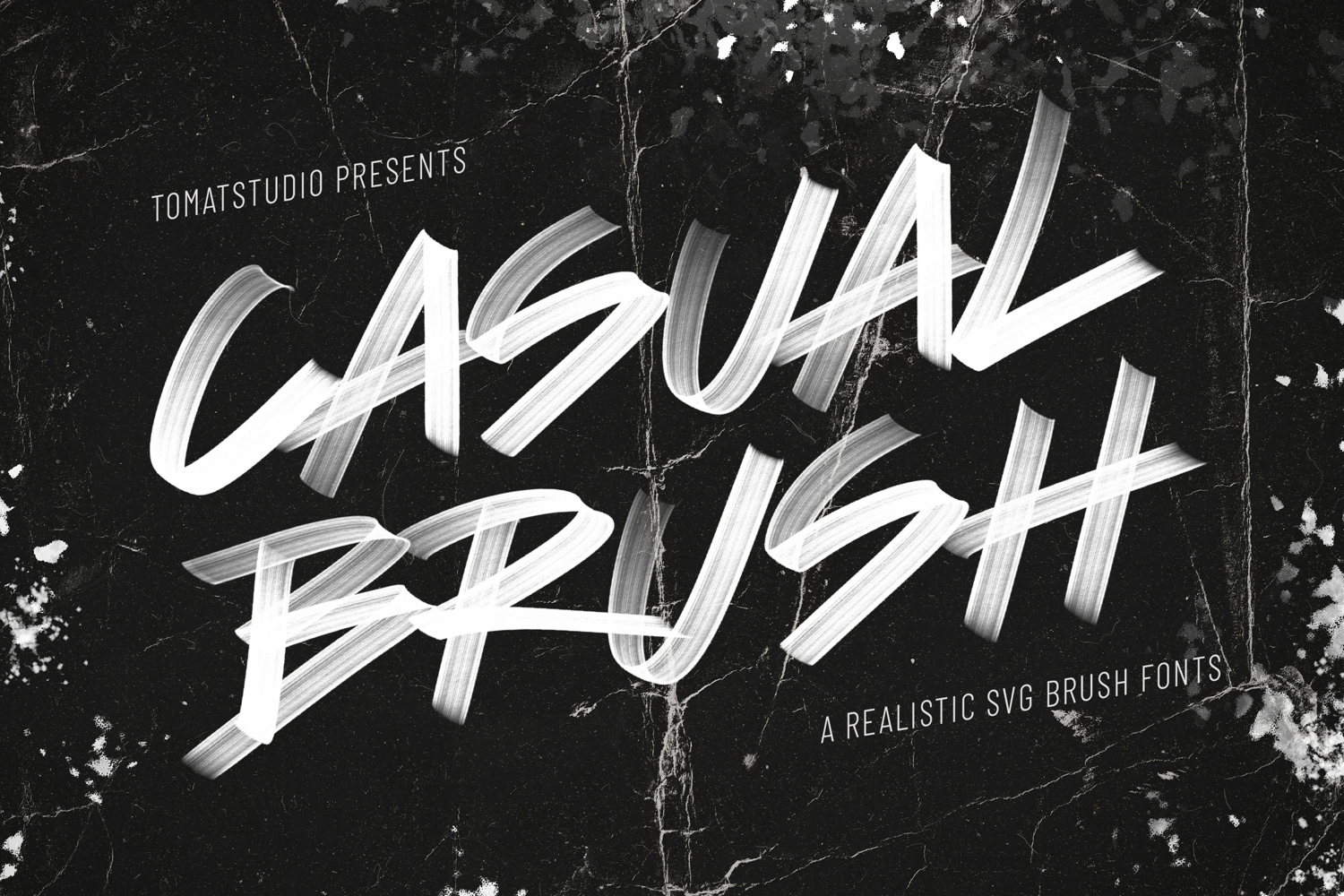
Casual Brush SVG font
This realistic brush fonts can increase the coolness of your design, feel realistic, rough and brush texture make it unique and stand out. This font crafted with my natural flow handwriting, combined regular writing and graffiti street styles. You'll get two files SVG and regular fonts. Cheers!